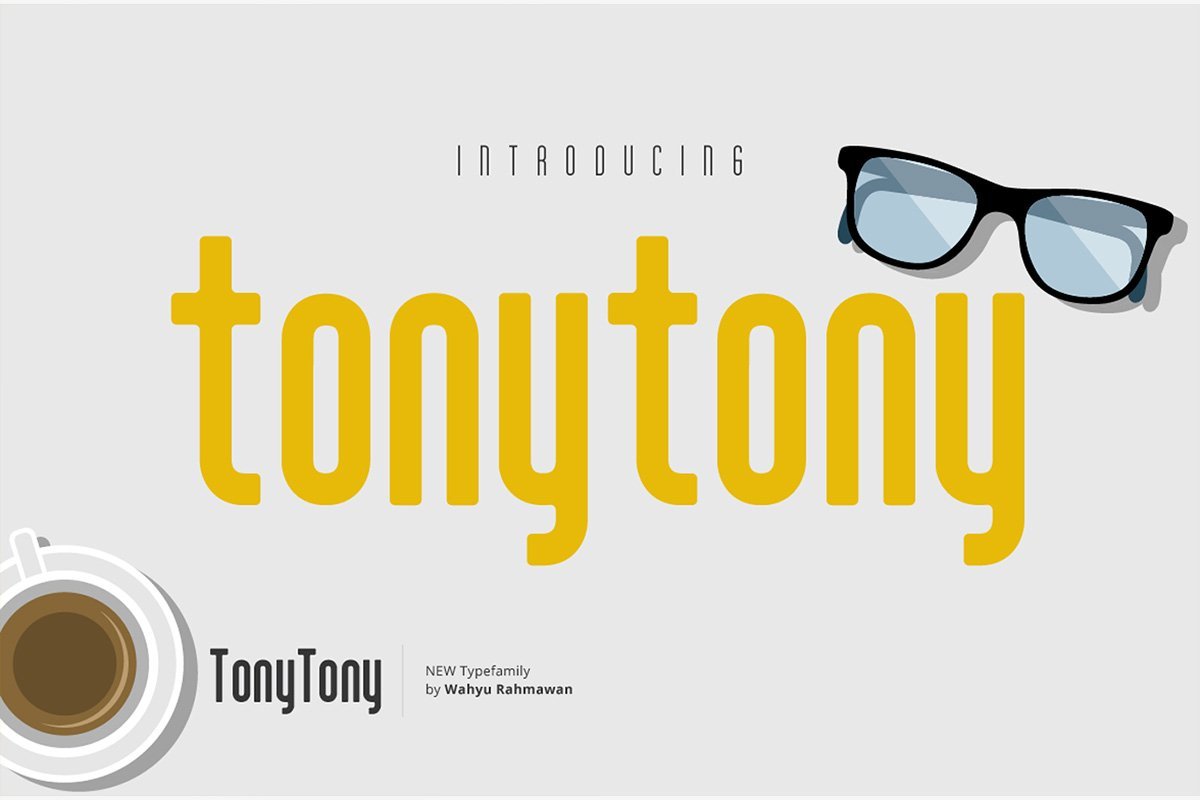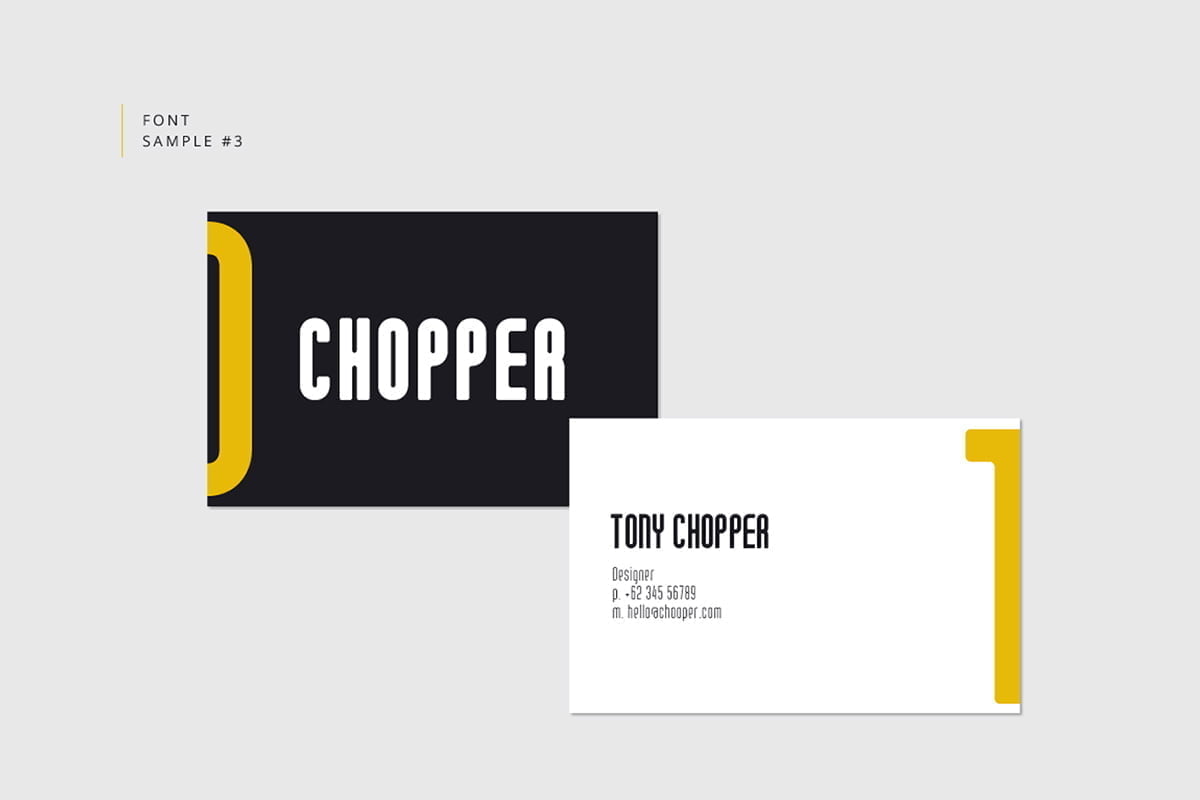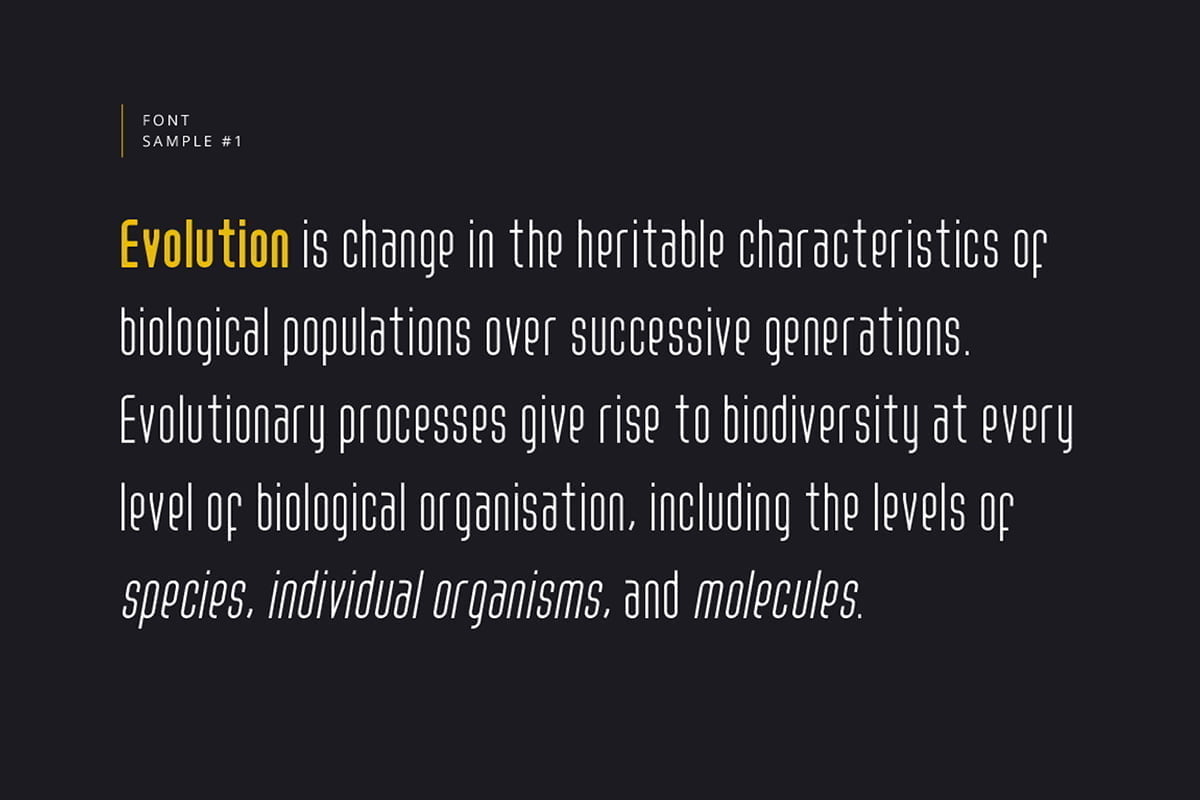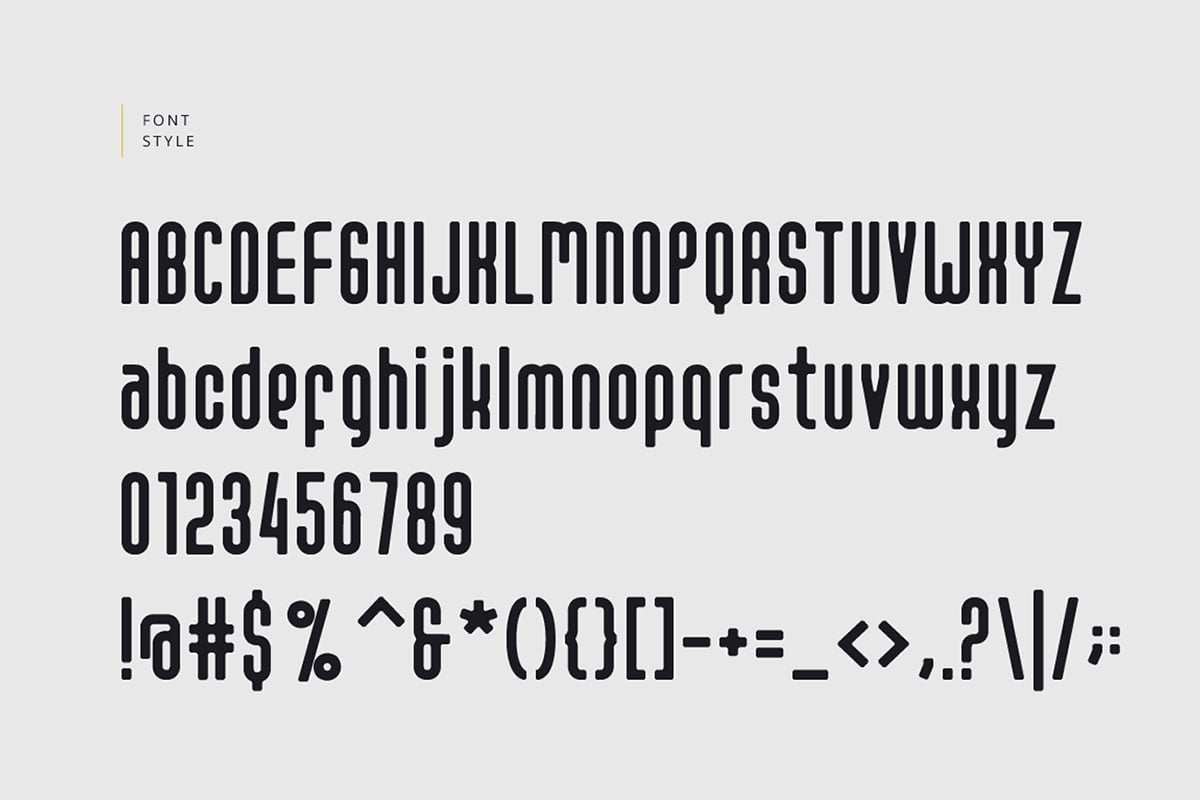
Tony Tony Font is a clean and simple sans serif font, with sharp and smooth edges. This font is perfect for logo designs, headers, or even small amounts of text. It contains uppercase and lowercase characters within the 6 fonts, round and sharp edges.
- 3 Weights
- 2 Styles (Sharp and round edges)
- Basic Latin A-Z and a-z
- Numerals & Punctuation
TonyTony Sans